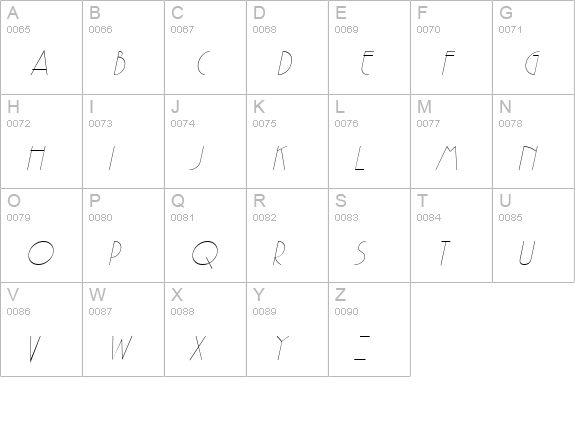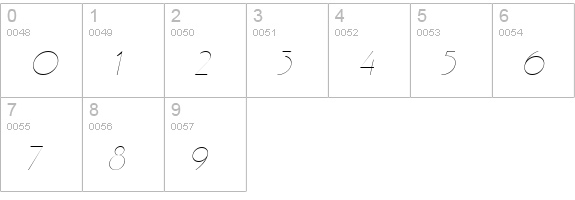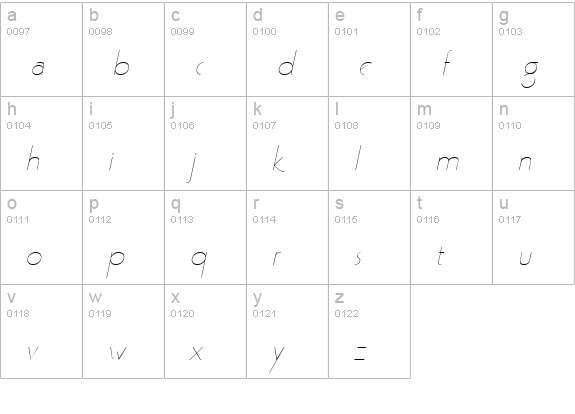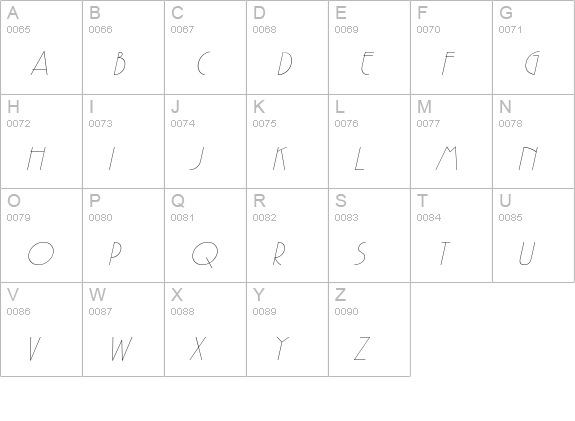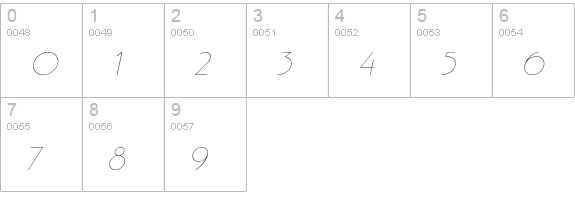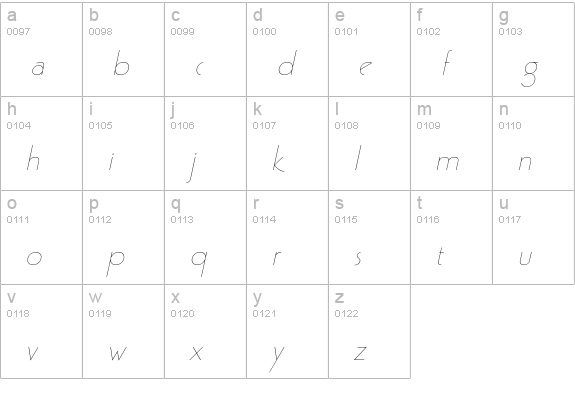
Gaston Italic is a distinctive, italic variant in the Gaston typeface family \xE2\x80\x94 well suited to design and typography projects.
Gaston Italic font is a stylish and elegant typeface that exudes sophistication and charm. Its sleek curves and distinctive letterforms make it perfect for adding a touch of class to any design project. Whether you're creating invitations, branding materials, or social media graphics, Gaston Italic font will elevate your work to the next level. What's even better is that Gaston Italic font is completely free to download at FontsMarket.com. That's right, you can access this premium font without any cost, making it a fantastic choice for both personal and commercial use. Don't miss out on the opportunity to enhance your designs with the beauty and versatility of Gaston Italic font. Download it today and let your creativity shine!